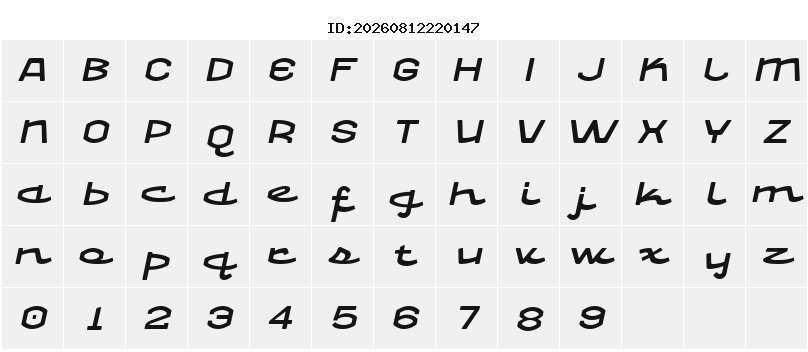
• Font Name: Retron
• Full Font Name: Retron Italic
About Retron.ttf
Retron.ttf is a modern, elegant sans-serif font designed for ultimate readability and visual harmony. Perfect for branding, headlines, web design, and print materials.